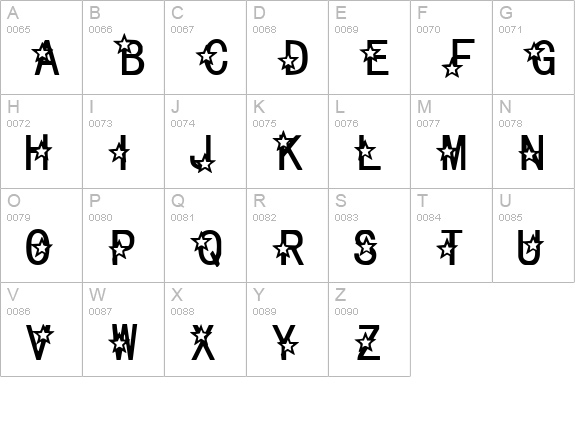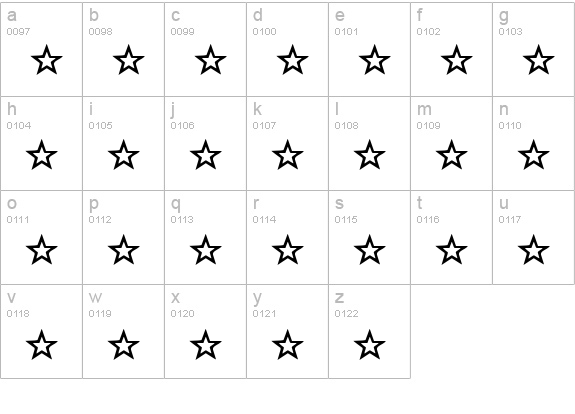
Celestial Font Details
The Celestial font is a stunning and elegant typeface that exudes a sense of cosmic beauty and celestial grace. Its intricate strokes and graceful curves evoke images of starlit skies and celestial wonders. Perfect for adding a touch of magic and mystique to your designs, Celestial font is a versatile choice for a wide range of projects. Best of all, Celestial font is available for free download at FontsMarket.com. This means you can easily access this enchanting typeface and incorporate its celestial charm into your designs without any cost. Don't miss out on the opportunity to add a touch of celestial beauty to your projects with the Celestial font - download it for free today at FontsMarket.com!